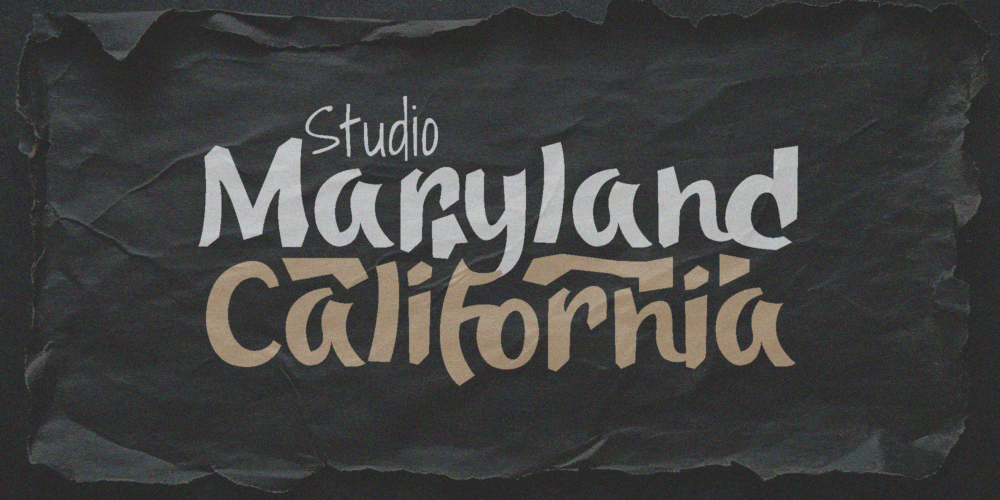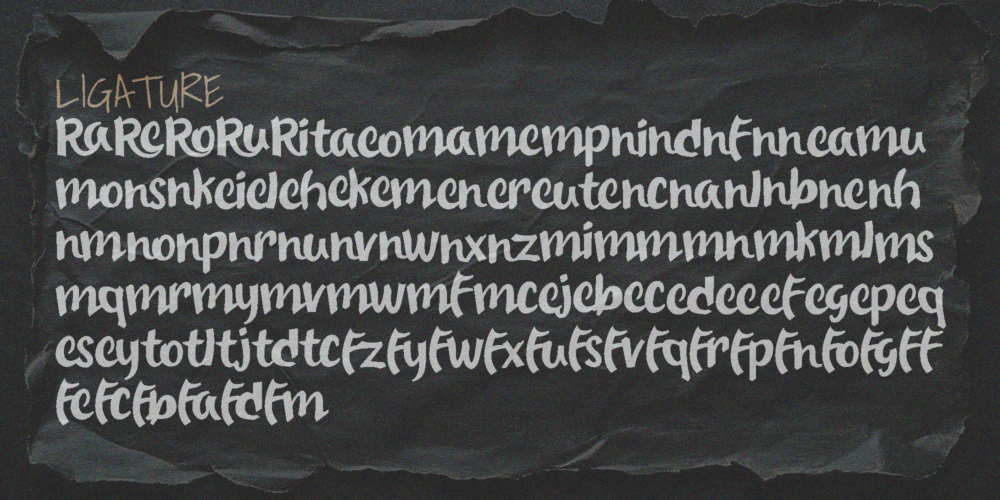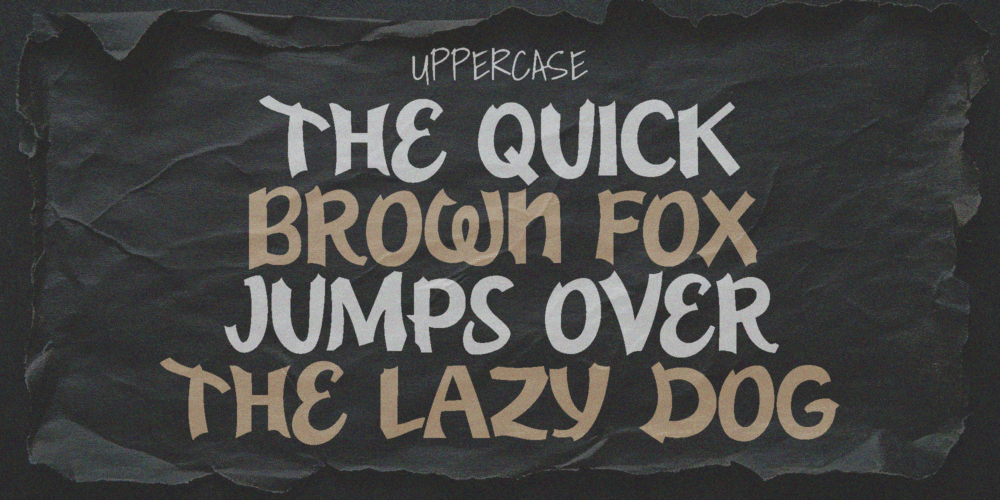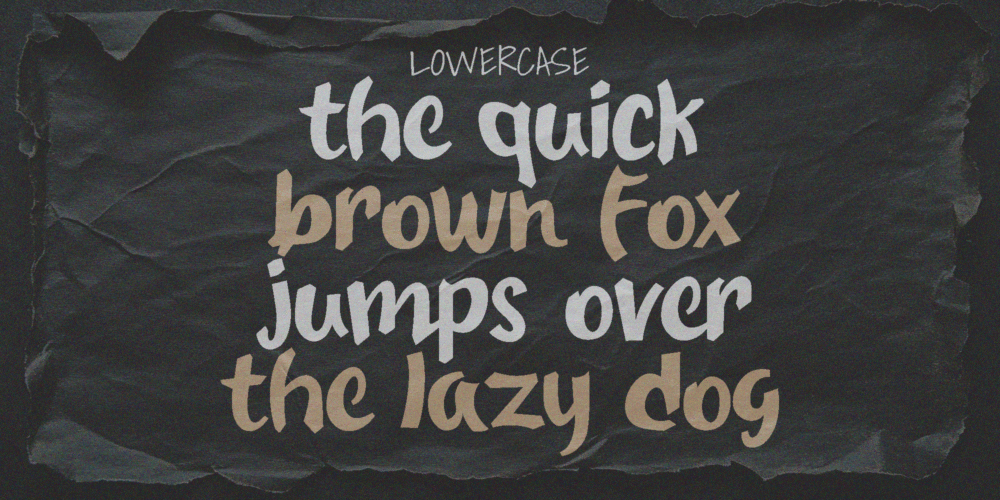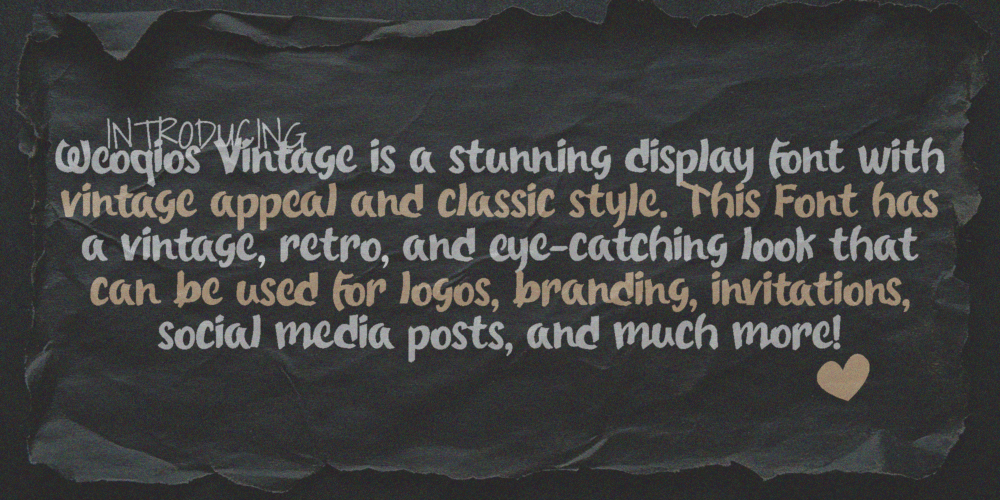
Weoqios Vintage
Introducing the latest version of Weoqios Vintage
Weoqios Vintage is a captivating display font that beautifully blends modern vintage aesthetics with timeless charm. With its bold retro appeal and refined details, this font is crafted to make your designs stand out effortlessly.
Perfect for logos, branding, invitations, social media graphics, and more, Weoqios Vintage brings a unique sense of elegance and character to any project. It also includes multilingual support, making it a versatile choice for a global audience.
Add a classic yet fresh touch to your designs with the enduring charm of Weoqios Vintage.
Weoqios Vintage – Beautifully Vintage Font
Weoqios Vintage is a captivating display font that beautifully blends modern vintage aesthetics with timeless charm.